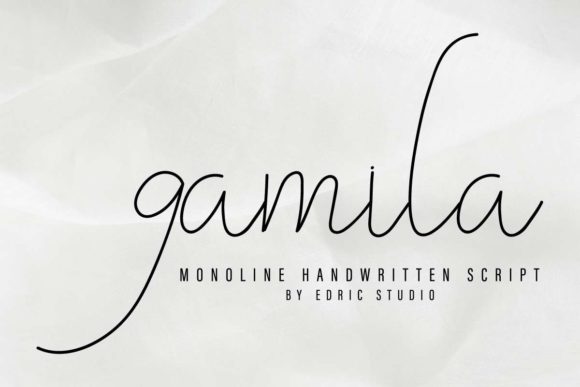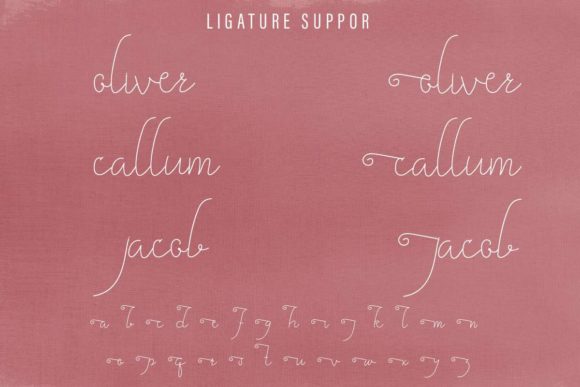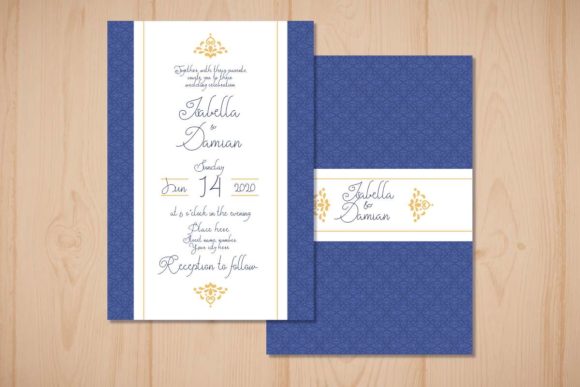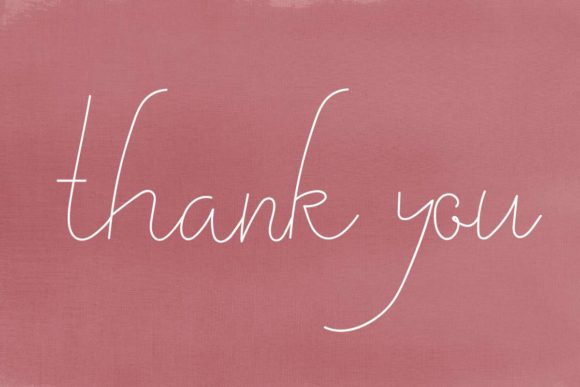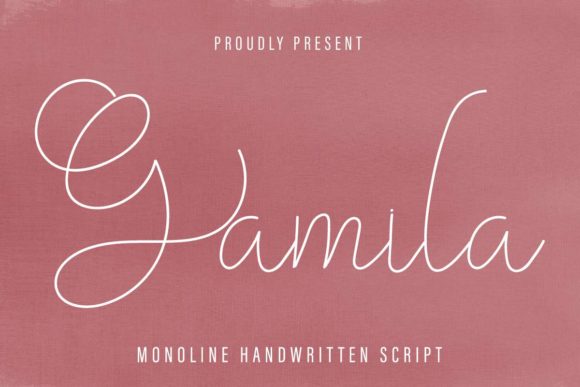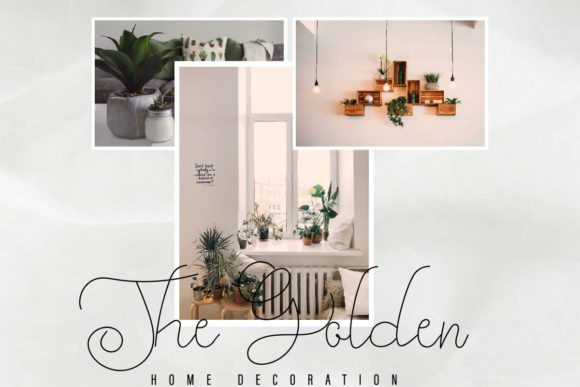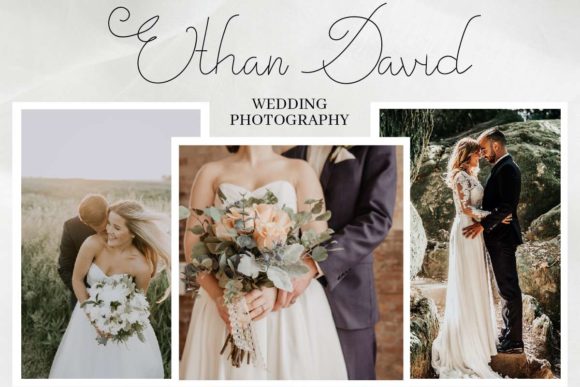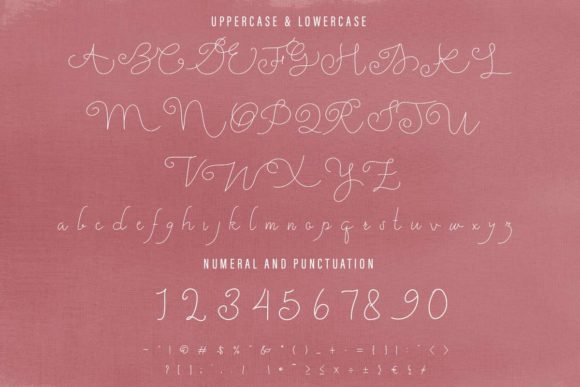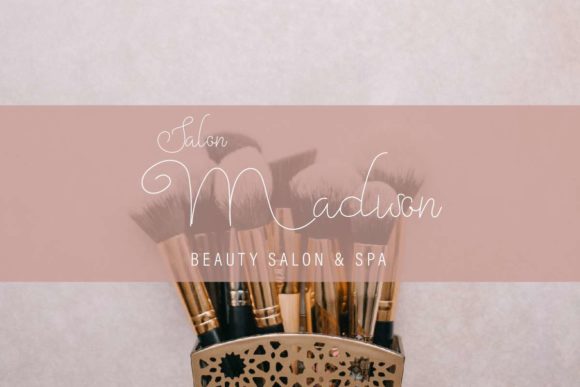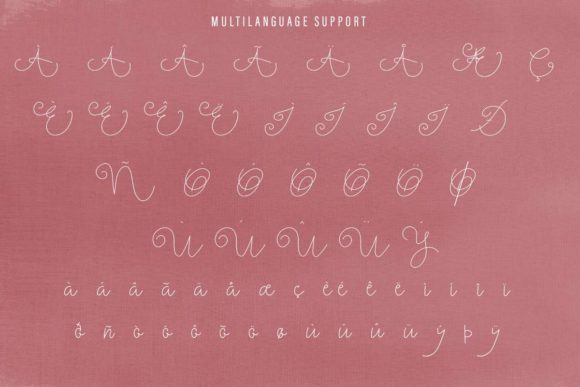
Gamila Font
About Gamila Font
Gamila is a beautiful monoline script font. It features a luxurious style and it will add a glamorous touch to your upcoming projects!